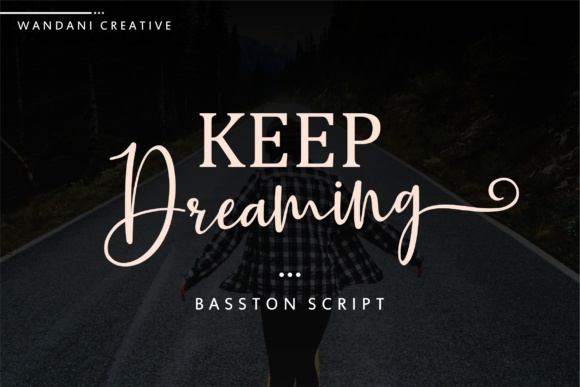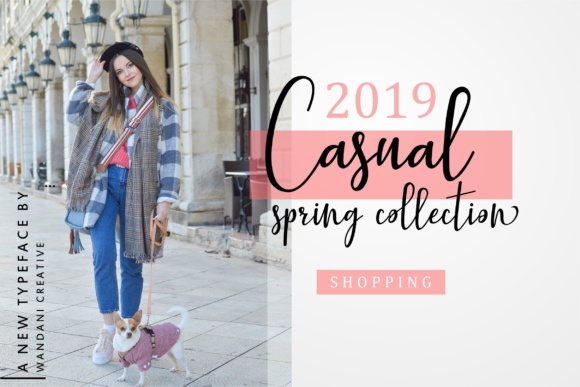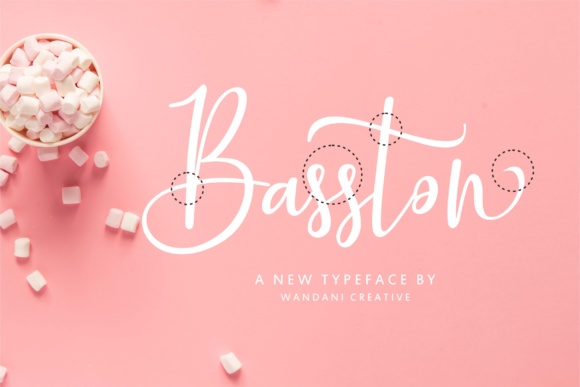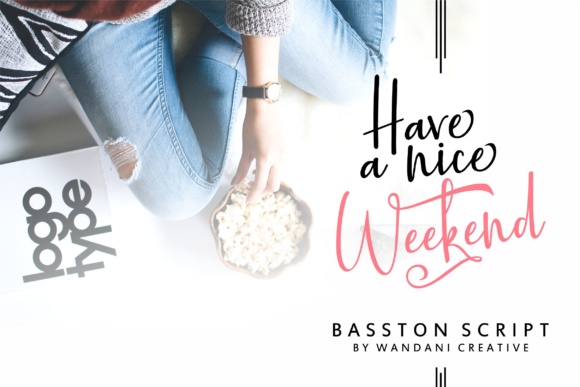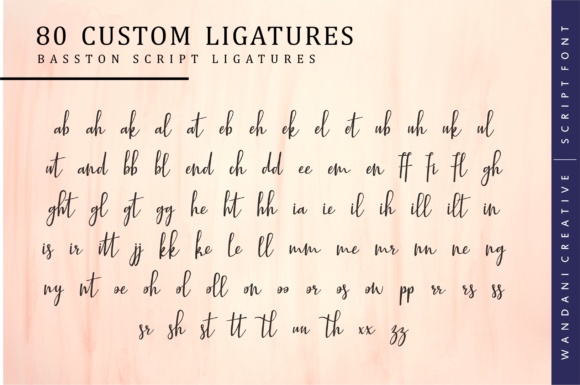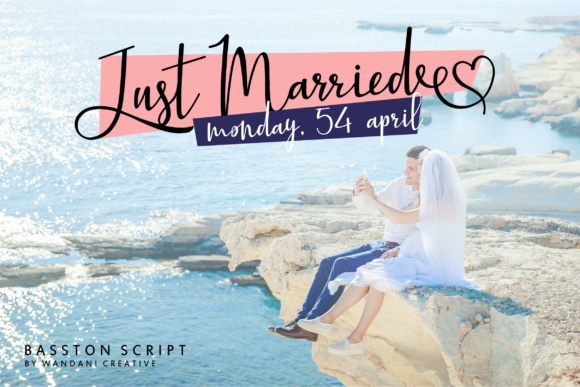
The Art of Beautiful Typography: Introducing the Basston Script Font
Have you ever been struck by the perfect combination of words and design, and felt the urge to recreate that magic? For designers, it’s a moment that sparks creativity and sets the wheels in motion. For us, it’s the Basston Script Font that’s been on our minds lately – a beautiful script font that exudes elegance and charm.
The Basston Script Font is more than just a pretty face; it’s a powerful tool designed to help you create stunning calligraphy designs with ease. With its extensive library of alternate characters and ligatures, you can experiment with different styles and create unique designs that reflect your brand’s personality.
Whether you’re working on branding, packaging design, or any other creative project, the Basston Script Font is an invaluable addition to your toolkit. Its versatility and charm make it an essential resource for designers looking to elevate their work and make a lasting impression.
- Unique Characteristics: Distinctive, elegant script design with intricate details and swashes, ideal for creative and artistic projects
- Font Style: Script, suitable for headings, titles, and other decorative text elements
- Language Support: Multilingual support, including Latin, Cyrillic, and Greek alphabets, making it a versatile choice for global projects
Basston Script Font Review
Overall, I was excited to dive into the Basston Script Font, but as I worked with it, I found a mix of great features and some limitations. Let’s break it down:
- The Basston Script Font has a beautiful, elegant feel that’s perfect for creating a luxurious or vintage atmosphere in designs.
- It comes in a range of weights, from light to bold, which gives designers a lot of flexibility when it comes to choosing the right style for their project.
- The font is highly customizable, with options for adjusting the spacing, kerning, and more, which is great for designers who want to fine-tune their designs.
- The Basston Script Font can be a bit difficult to read at small font sizes, which may be a problem for designers who need to use the font in situations where readability is crucial.
- The font’s connections between letters can be a bit wonky, which may cause issues in certain design situations.
In conclusion, while the Basston Script Font has its limitations, it’s still a great choice for designers who are looking for a high-end, elegant font for their projects. With a bit of caution and careful planning, designers can work around the font’s limitations and create stunning designs that showcase its unique charm.
Basston Script Font is ideal for creating elegant and sophisticated designs. Some common use cases include:
– Luxury branding and packaging
– High-end event promotions
– Quotes and inspirational sayings